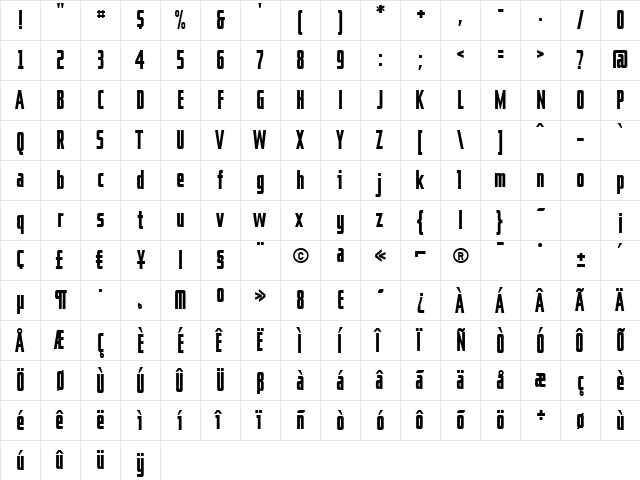
Jute SemiBold
| Foundry | YouWorkForThem |
| Designer | Michael Cina |
Design Context for Jute Typeface
Jute takes a measured approach to typography — its balanced proportions and neutral character make it a reliable workhorse for both digital and print work. Its bold stroke weight gives it real presence on the page.